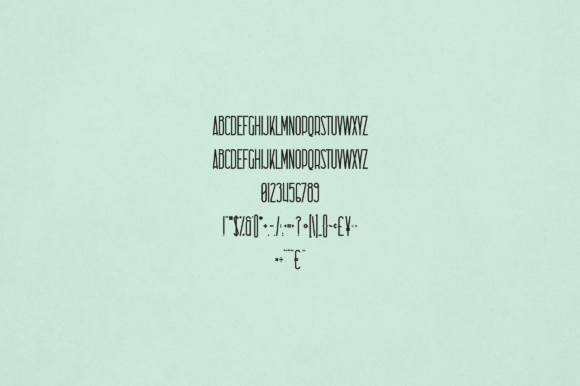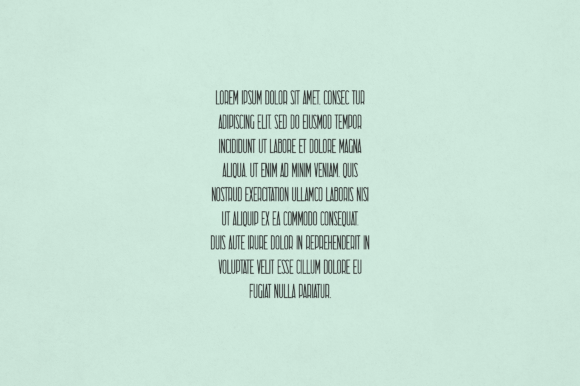
Introduction to Lou Font
You’re staring at a blank canvas, your creative mind racing with possibilities. The project is waiting, and you need a font that will elevate your design from ordinary to extraordinary. That’s where Lou Font comes in – a stunning, elegant display font that’s sure to make your typography shine.
Whether you’re working on a branding project, home-ware design, or product packaging, Lou Font is the perfect design resource to add a touch of sophistication and whimsy. Its versatility and high-quality design make it an ideal choice for creative projects that require a unique and stylish look.
Key Features of Lou Font
- High-quality, vector-based font design with transparent background, making it perfect for creative projects that require a clean and minimalist look.
- Unique and elegant design, featuring a modern sans-serif style that is both versatile and sophisticated, making it an excellent choice for a wide range of creative projects.
- Includes a comprehensive character set, including uppercase and lowercase letters, numbers, and punctuation marks, making it a reliable choice for designers who need a high-quality font.
Honest Review: Lou Font
As a designer, I’m always on the lookout for high-quality fonts to elevate my creative projects. Recently, I stumbled upon Lou Font, and I’m excited to share my honest review.
Here are some of the key features I appreciate:
- High-quality design that’s perfect for print or digital projects
Limitations: ⚠️ One thing to note is that the font selection is limited, so it may not be the best choice for designers working on projects with specific font requirements. Additionally, the font may not be suitable for very large-scale projects.
Overall, I’m impressed with Lou Font. It’s a great addition to any designer’s toolkit, and I’d definitely recommend it for smaller to medium-sized creative projects.
Tips for Getting the Most Out of Lou Font
To get the most out of Lou Font, experiment with different font sizes, colors, and combinations. Use it in conjunction with other design elements to create visually appealing designs.
Lou Font is perfect for a variety of creative projects, including graphic design, digital art, and typography. Its high-quality design and transparent background make it a versatile resource for designers and artists.